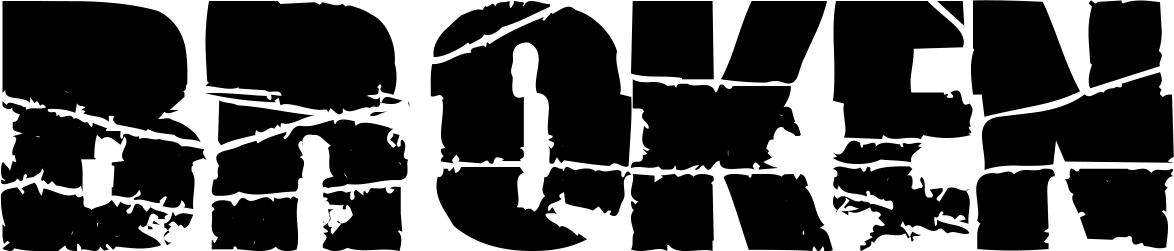
Broken 74 Font
Broken 74 is a destroy font that offers chunky bold, deformed characters that are cracked and broken and they will add a rough, modern grunge feel. Although it might look difficult to read, be sure that it makes your typography trendy to be the center of everyone’s attention!
This grunge block font doesn’t provide lowercase letters, numbers, or punctuations but it contains capital alphabets. A few useful places to display the typography you designed are branding, clothing, games, posters, and movies.